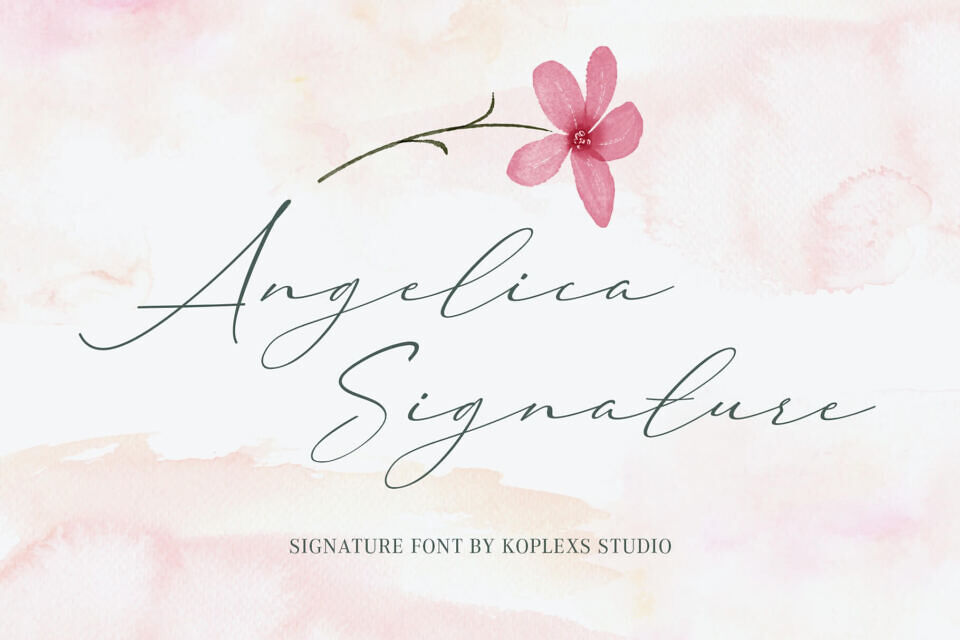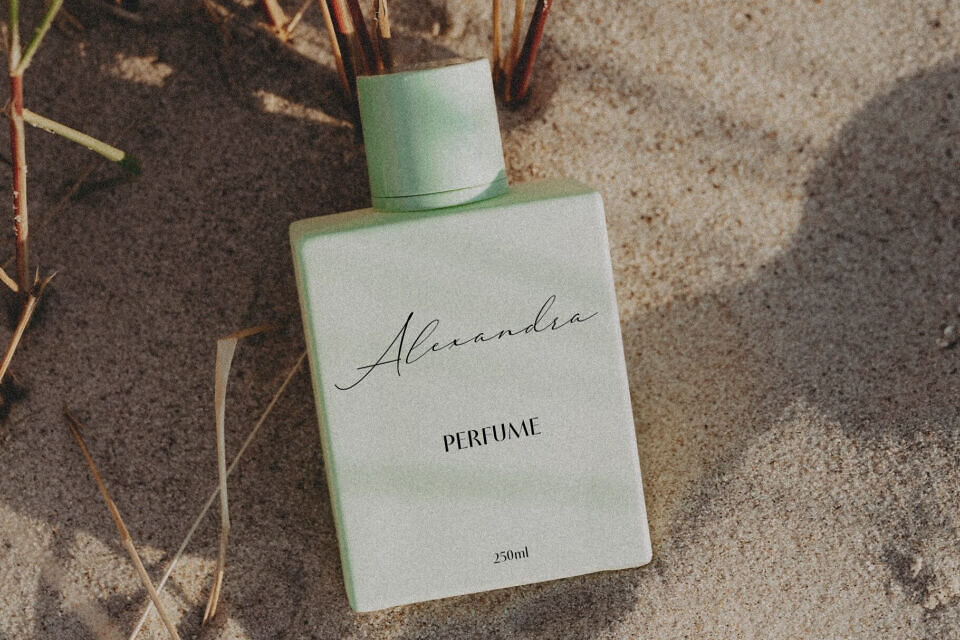
Angelica Signature Font is a beautifully crafted script font designed to embody elegance, modernity, and timeless style. This signature font blends the sophistication of calligraphy fonts with the natural charm of a handwritten font, making it the perfect choice for projects that demand personality and refinement.
Created with versatility in mind, Angelica Signature works seamlessly across digital and print media. Whether you are building a branding font identity, designing a wedding font invitation, or creating an aesthetic font for lifestyle content, Angelica Signature delivers a graceful touch that elevates any design.